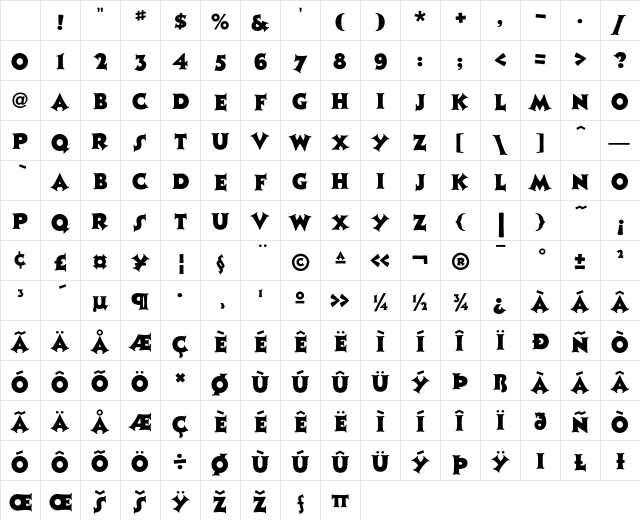
Complete JazzPosterICG Medium glyph index. Displaying only characters natively supported by JazzPosterICG Medium font.
JazzPosterICG is a composed and adaptable typeface that performs quietly and consistently across a wide range of design contexts.